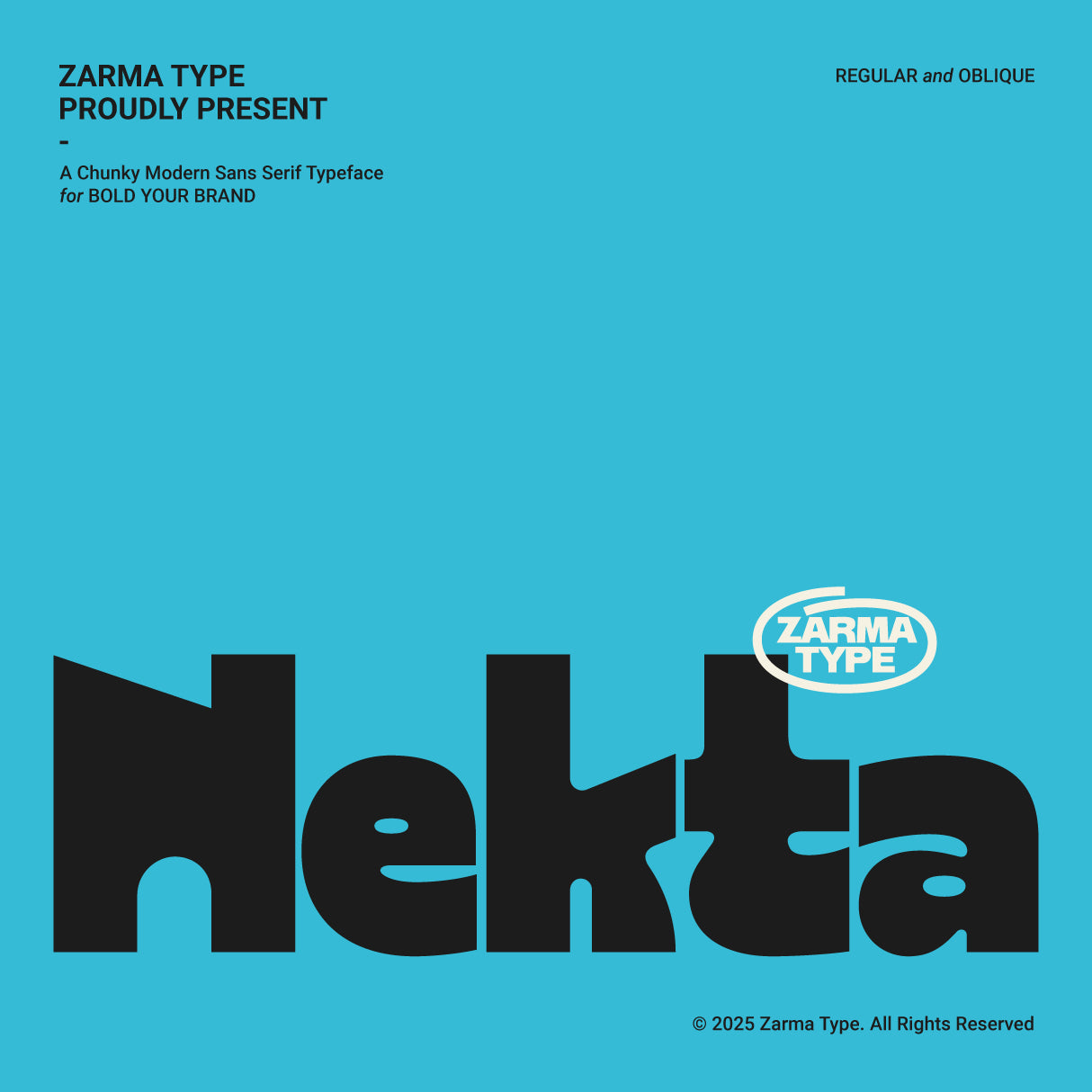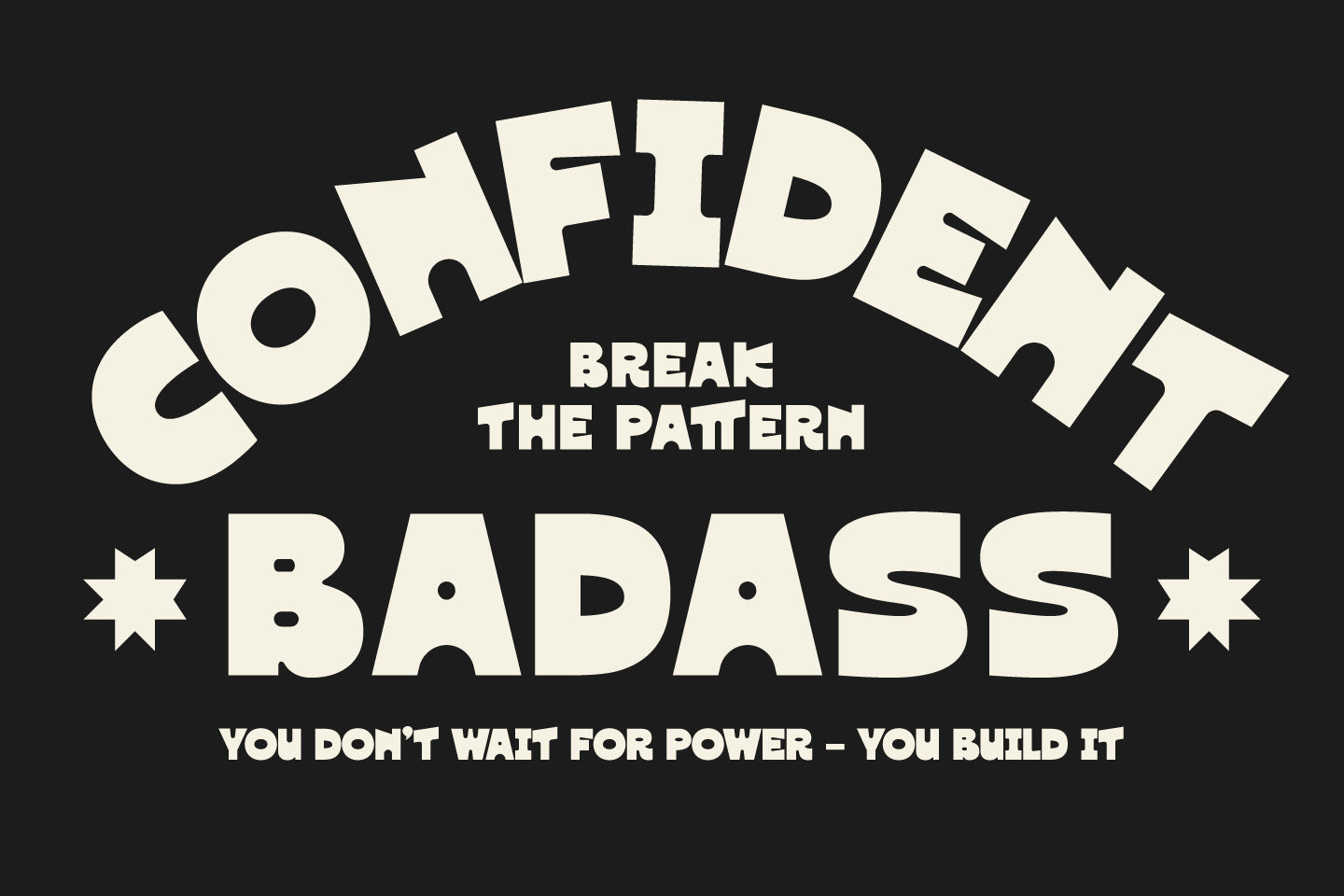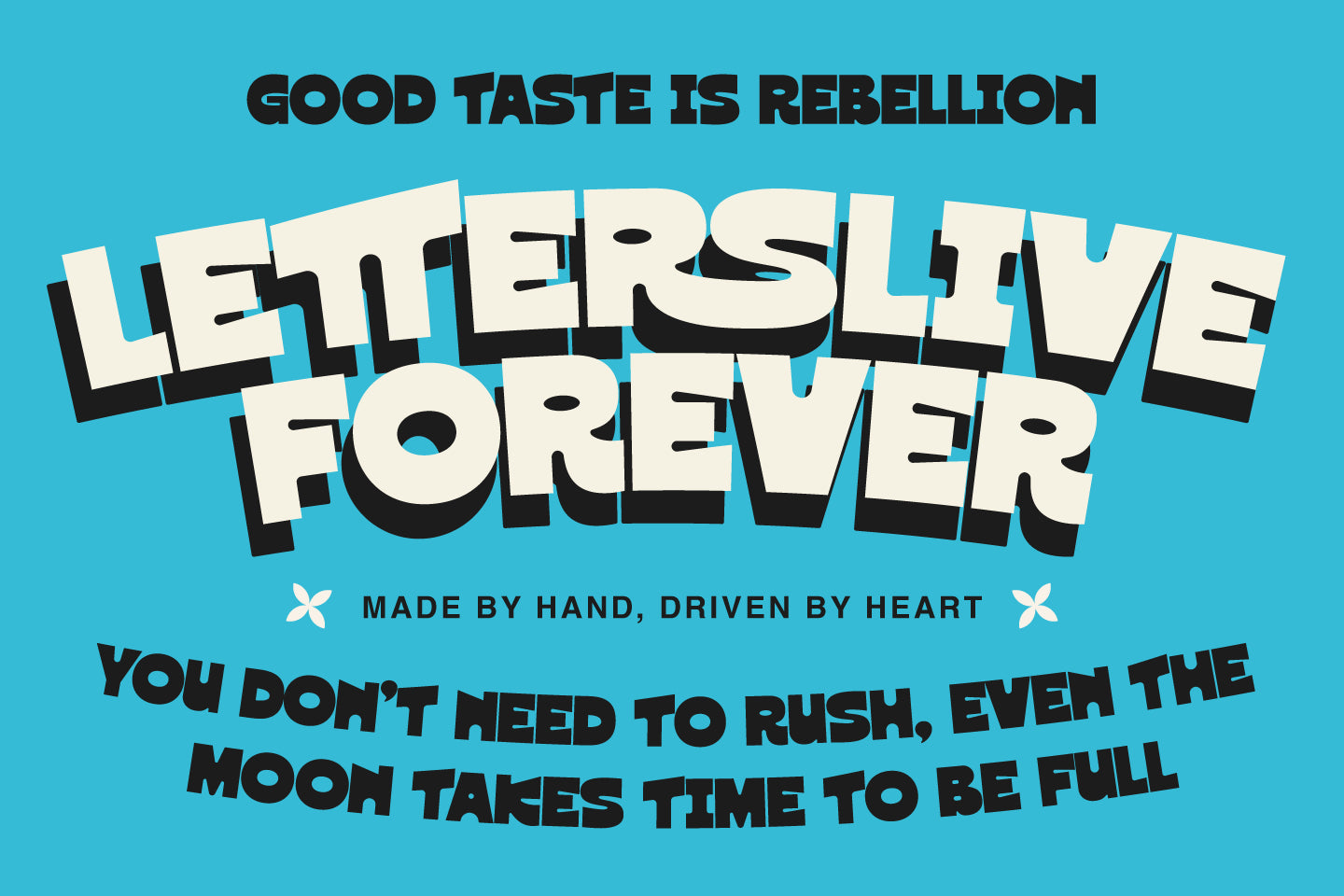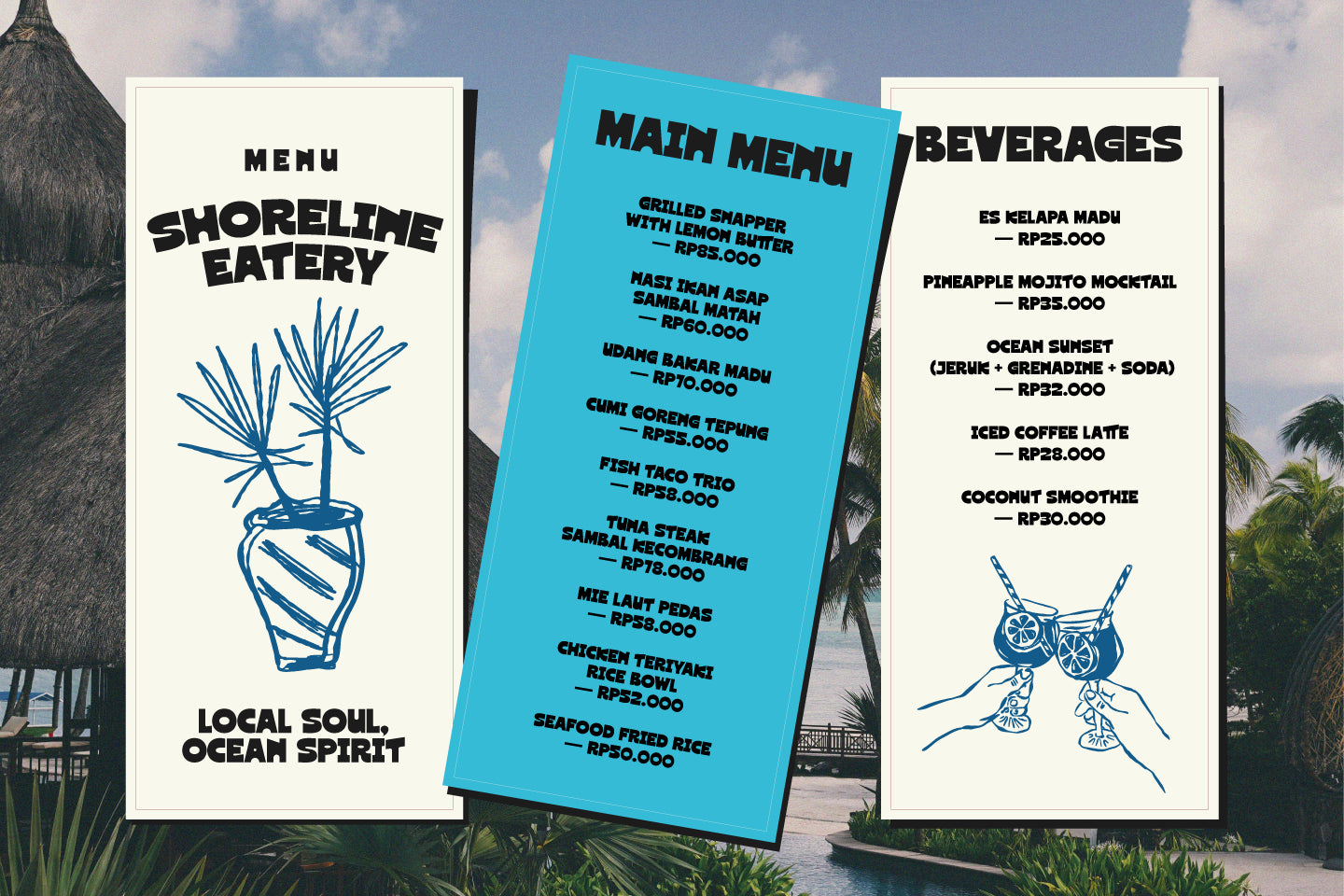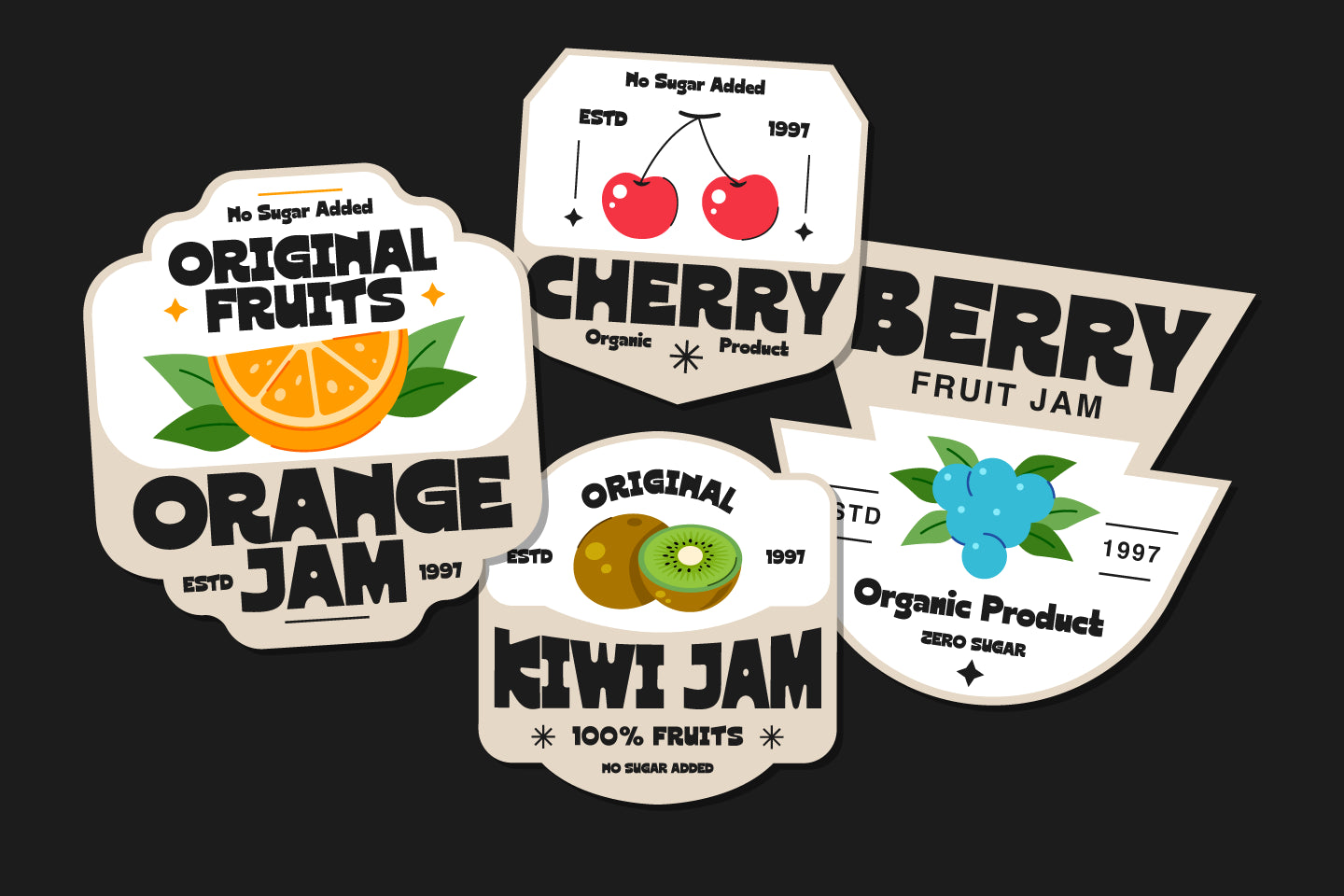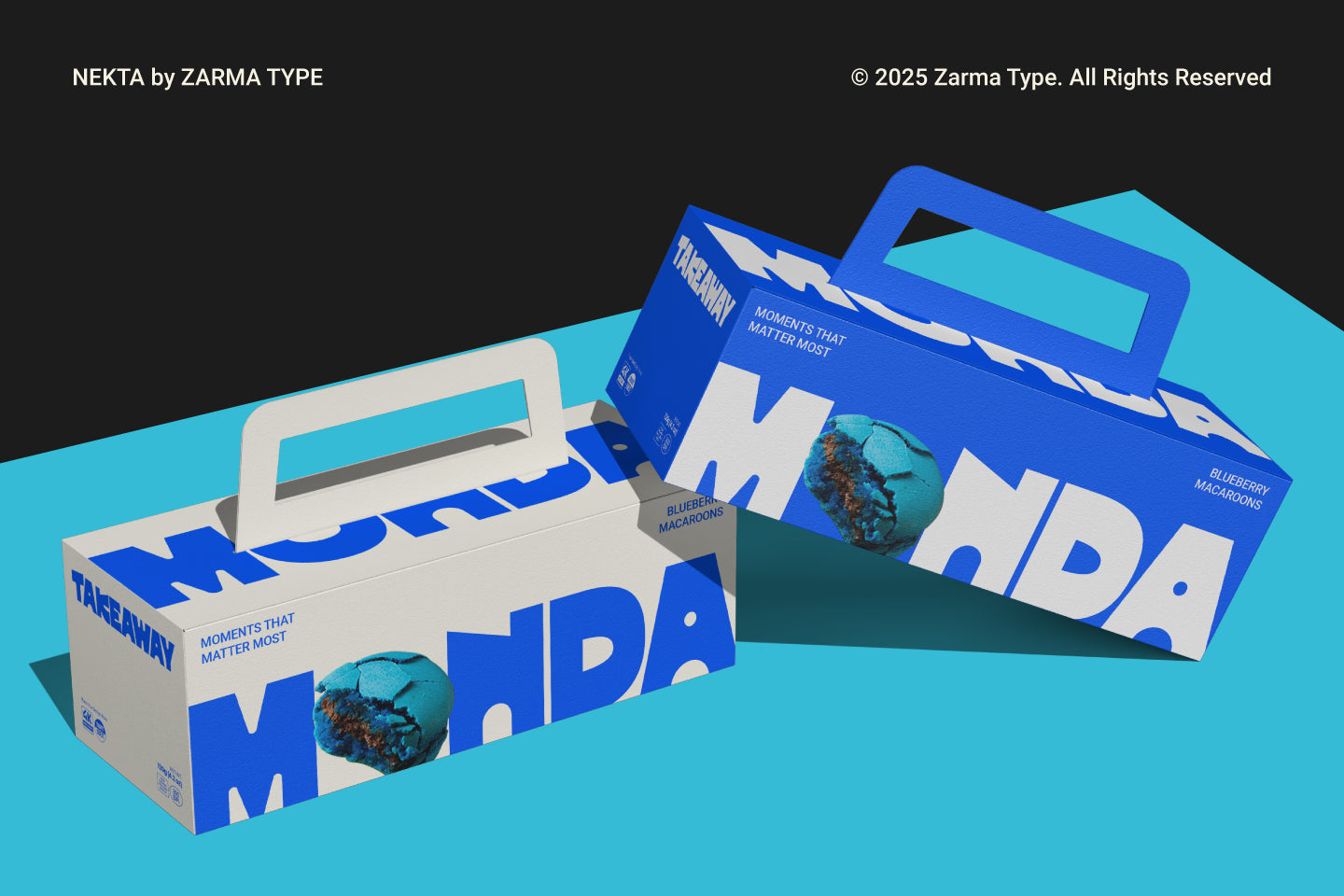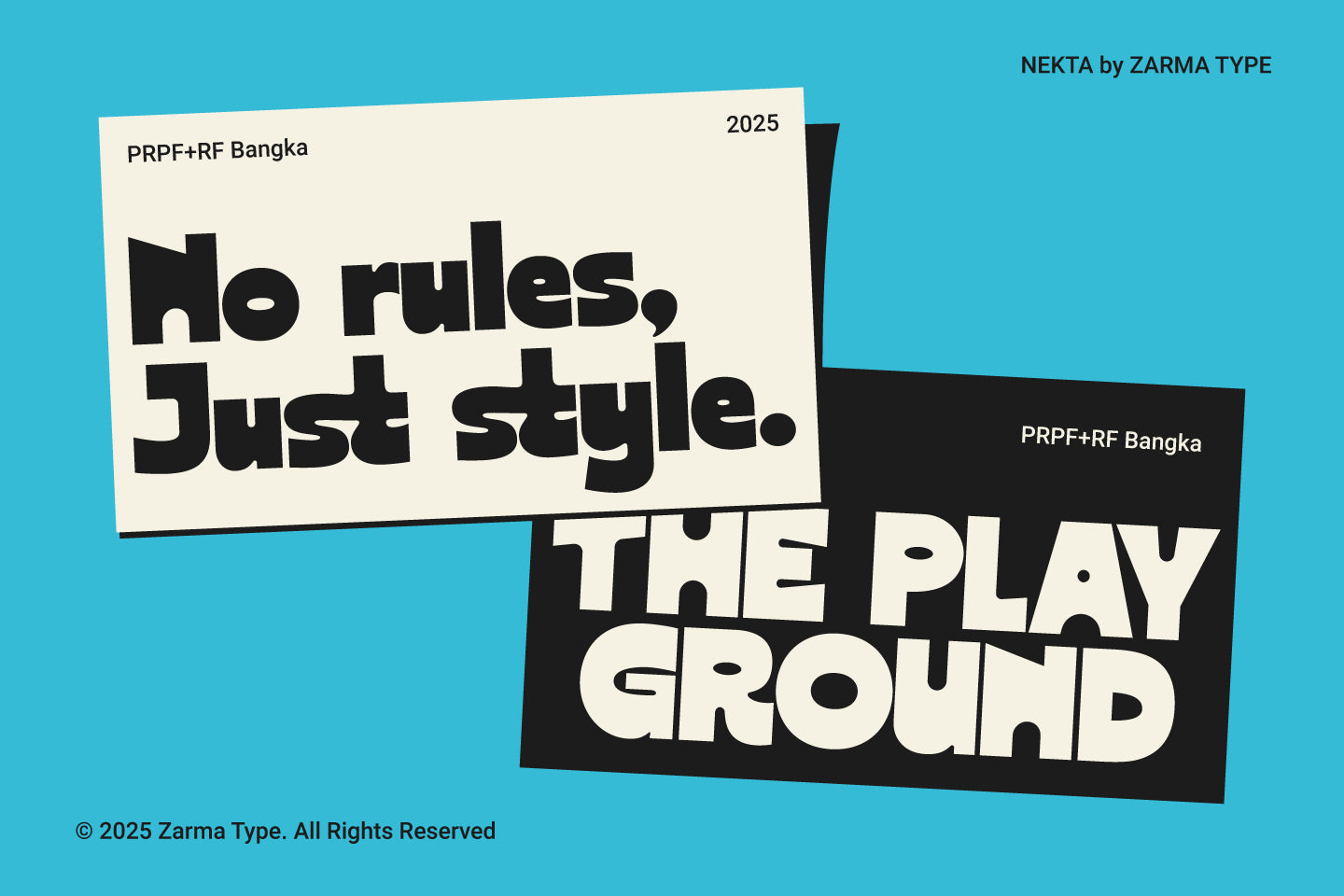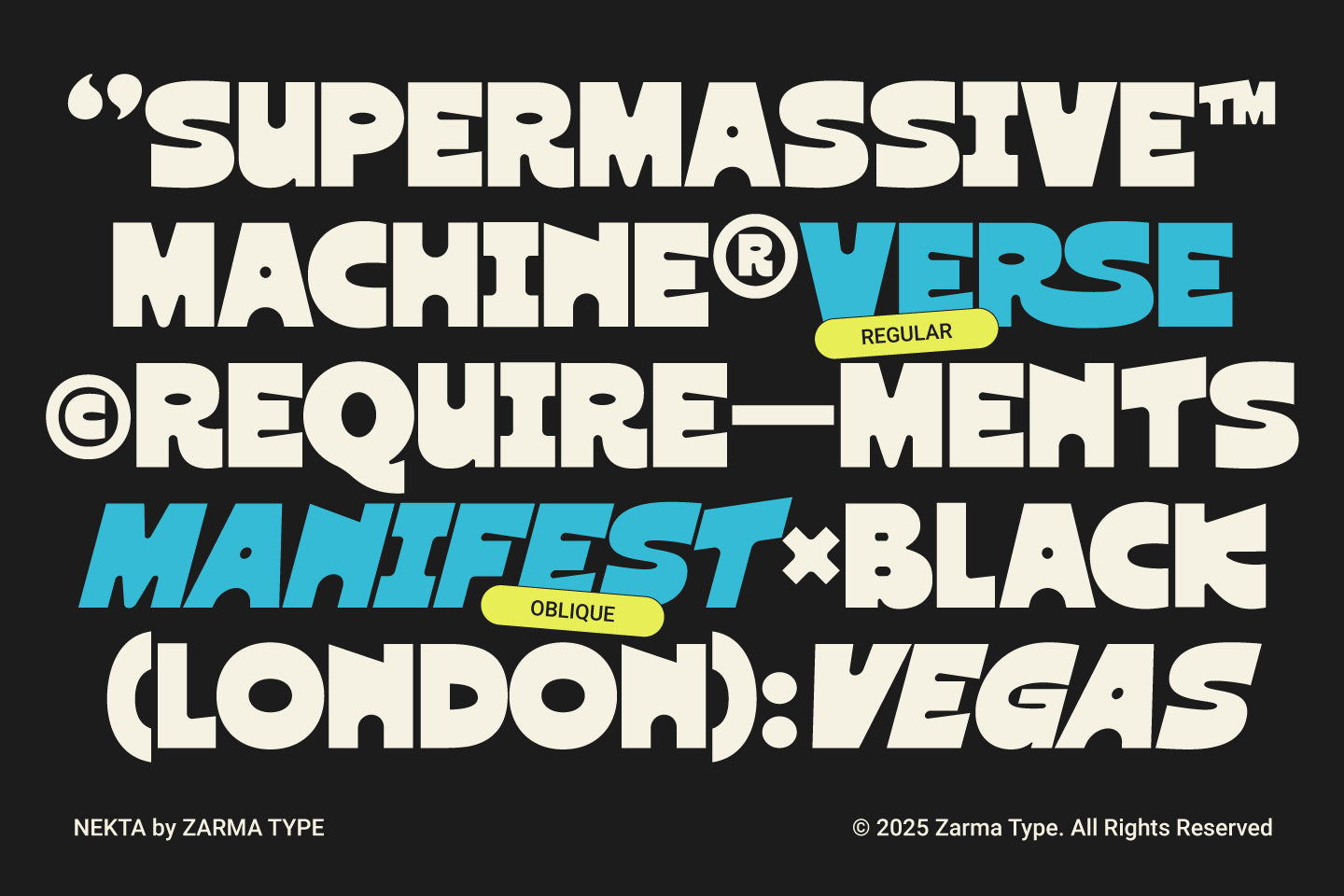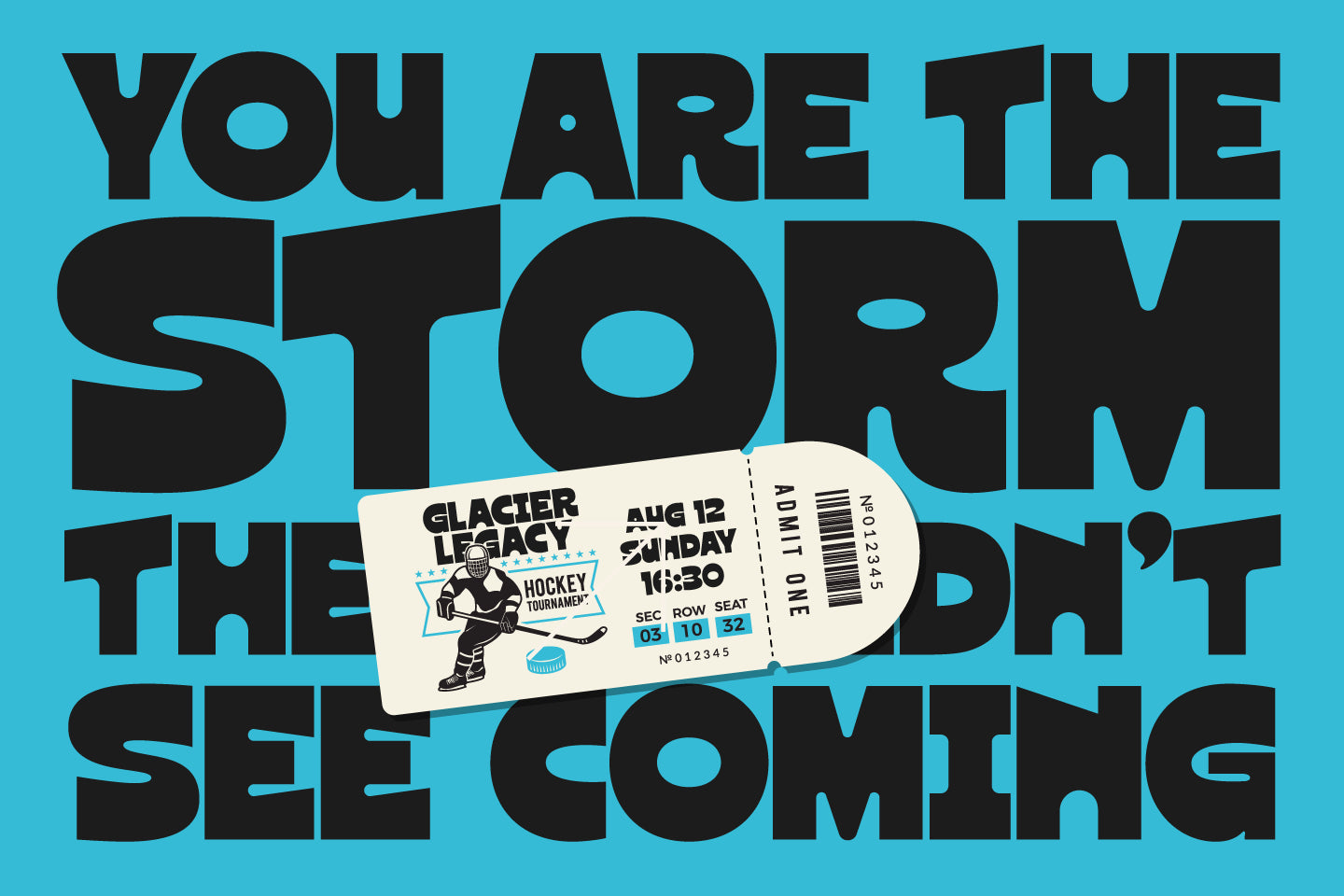
Nekta Font
Zarma Type
Nekta is a bold Modern Sans Serif Font with confident proportions, rounded corners, and playful geometry that transforms simple words into striking headlines. Designed for clarity and versatility, its generous counters and clean spacing ensure excellent readability across branding, menus, posters, packaging, product labels, billboards, sports tickets, badges, wayfinding systems, and social media graphics. When your design needs extra movement, the included Oblique style adds dynamic energy while maintaining a consistent visual identity.
Created for modern branding and display typography, Nekta includes 2 Styles—Regular and Oblique—along with uppercase and lowercase characters, numbers, punctuation, symbols, ligatures, Multilingual Support, and PUA Encoded Characters for easy access to stylistic alternates. Whether you're building bold brand identities or impactful editorial layouts, Nekta delivers the perfect balance of friendliness, strength, and contemporary simplicity.
Nekta Font is a bold Modern Sans Serif typeface featuring rounded corners and playful geometry, designed for clarity and versatility. It includes two styles—Regular and Oblique—along with uppercase and lowercase characters, numbers, punctuation, symbols, ligatures, Multilingual Support, and PUA Encoded Characters.